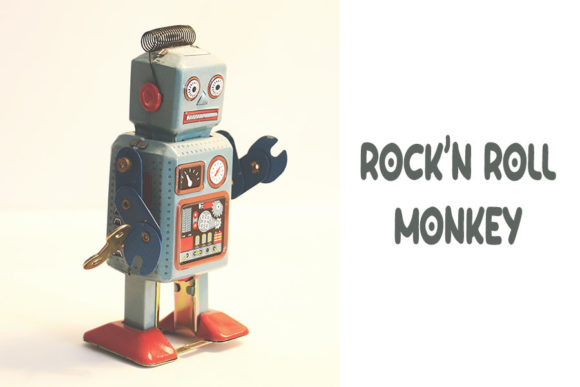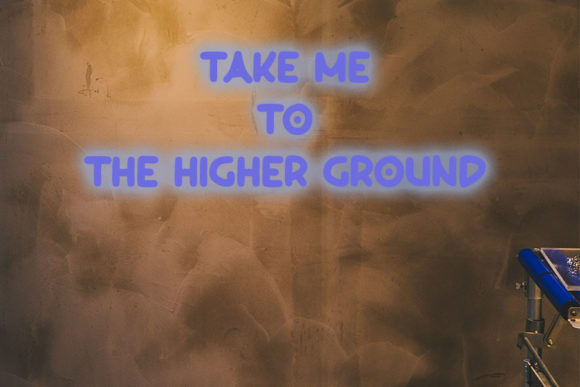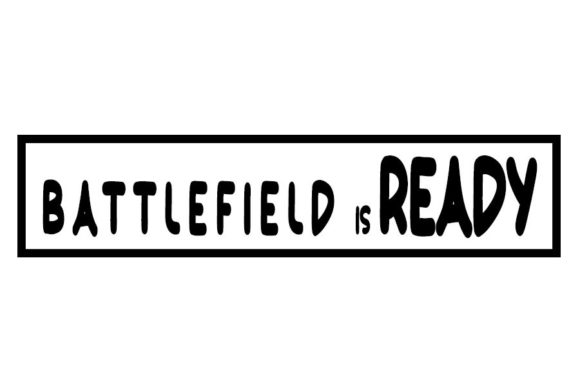
Introduction to Lost in Space Font
Lost in Space is a simple and friendly handwritten font.
Key Features of Lost in Space Font
Why Choose Lost in Space Font?
Lost in Space Font offers exceptional quality and versatility, making it a valuable addition to your design toolkit. Whether you’re creating for personal projects or commercial use, Lost in Space Font delivers professional results.